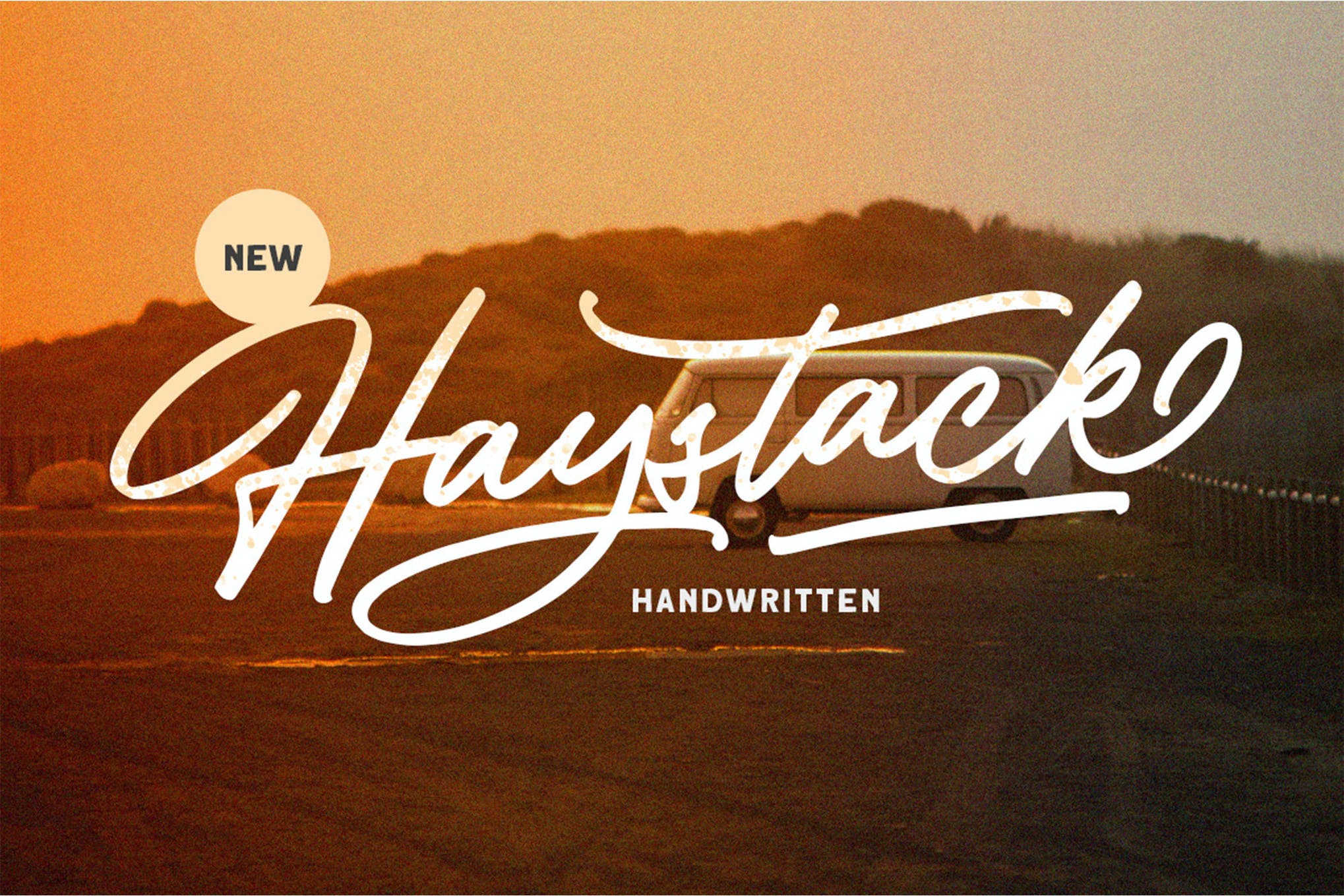
Haystack Font
Haystack is a handwritten script with many . You can use also for headline or signature. This type of font perfectly made to be applied especially in logo, and the other various formal forms such as invitations, labels, logos, magazines, books, greeting / wedding cards, packaging, fashion, make up, stationery, novels, labels or any type of advertising purpose.